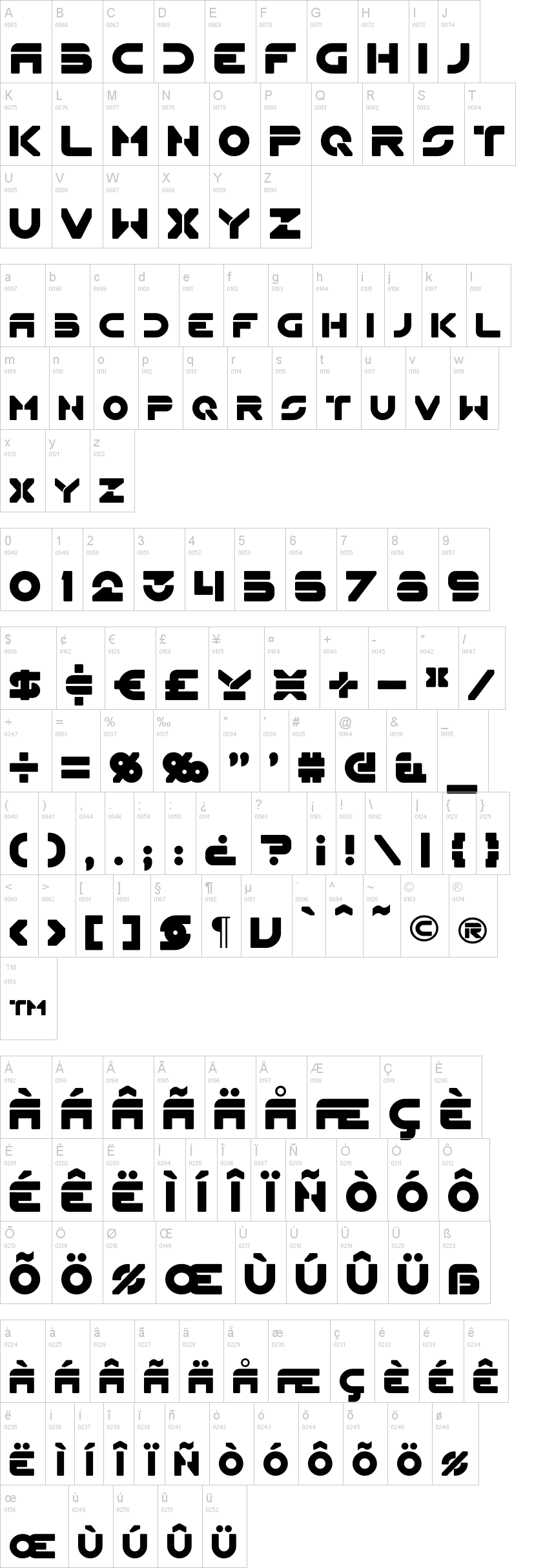
Flynn Italic.otfFlynn Bold.otfFlynn Bold Italic.otfNote of the authorFlynn is a sci-fi typeface is based on the title logos of "Tron" and "Tron: Legacy" from Walt Disney pictures. Includes basic alphabet and symbols. Includes hollow and italic versions.
* Reworked all curves to smooth glyphs
* Added polish unique characters
* Added bold and bold-italic weights
* Removed hollow style
* Reworked spacing